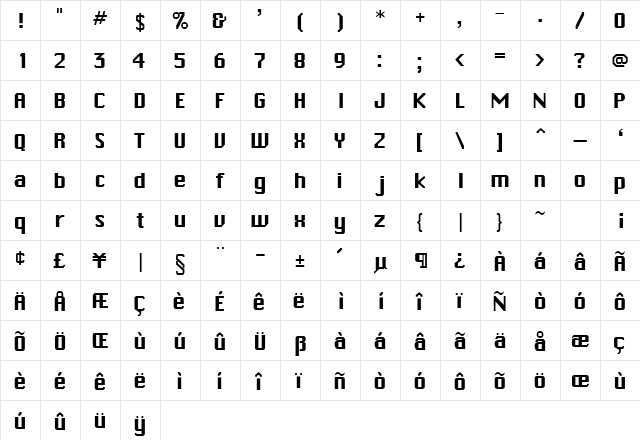
BeijingSSK Regular
Design Context for BeijingSSK Typeface
BeijingSSK offers clean, dependable letterforms without strong stylistic allegiance, making it a practical choice for designers who need flexibility.